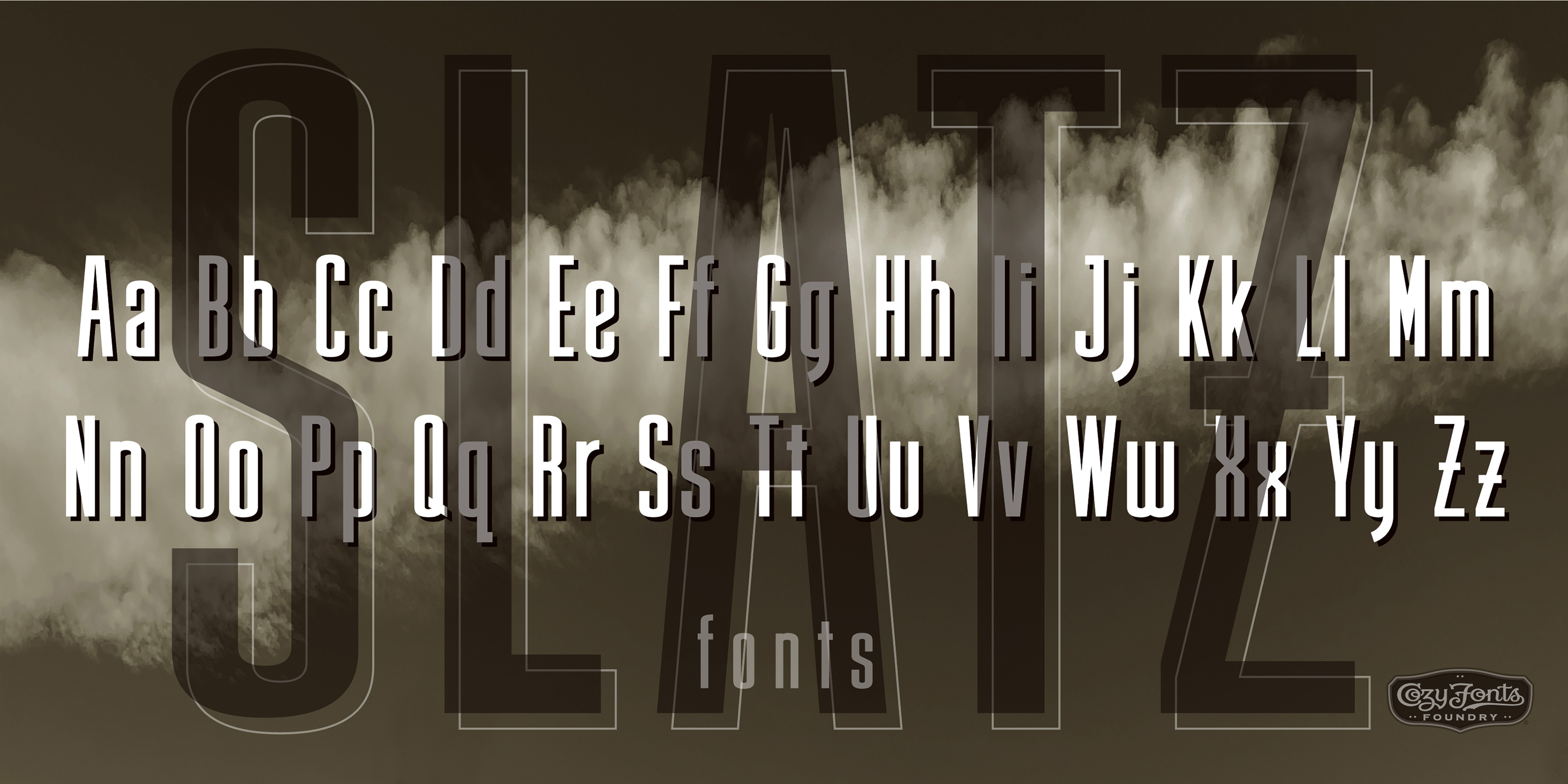
Slatz Font Free Download is a bold, urban-style display typeface that packs a punch with its geometric structure and modern edge. Please note that you must purchase this font for commercial use. It is available for free download for personal and testing purposes only.
You can use Slatz Font in graffiti-style designs, music album covers, urban clothing branding, modern event flyers, sports posters, tech packaging, and anything that needs a raw, powerful, and contemporary voice. It’s built to be loud, confident, and unforgettable.
What makes Slatz so exciting is its street-smart energy — thick strokes, angular shapes, and a no-nonsense attitude that turns every word into a visual statement. Whether you're designing for Gen Z fashion or edgy digital content, this font commands attention.
The Slatz Font family includes dynamic versions such as Slatz Regular, Slatz Bold, and Slatz Shadow, allowing you to experiment with depth, dimension, and layered effects for high-impact results.
If you’re ready to give your design a heavy dose of boldness and modern grit, Slatz Font Free Download is the typeface you need. Download it today and let your typography speak with style, volume, and urban attitude.